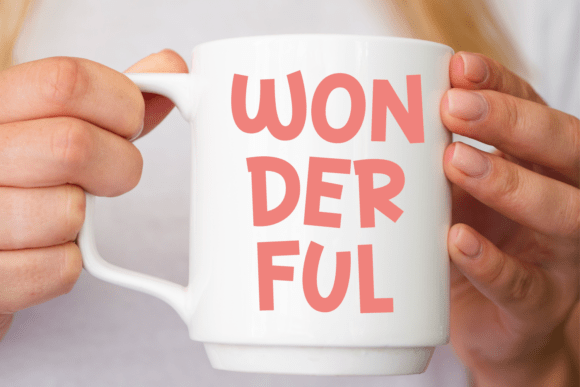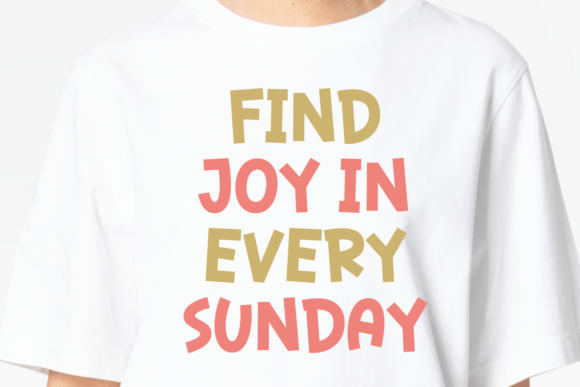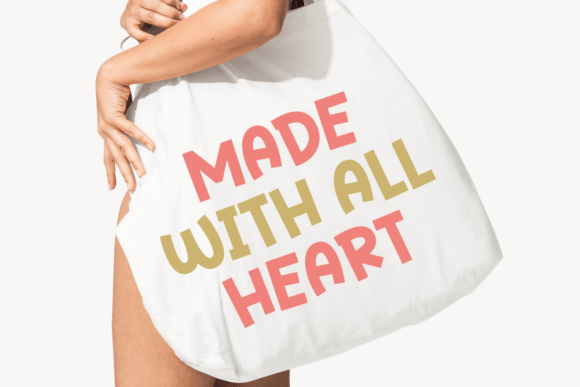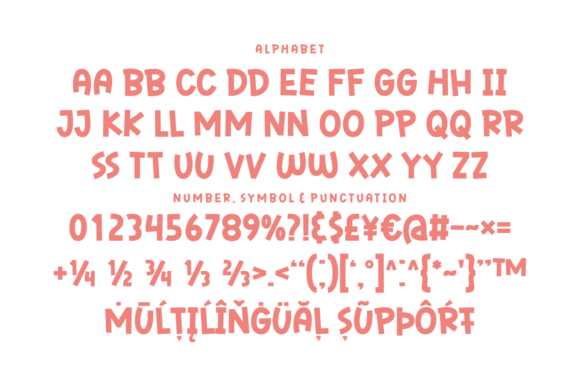
Introduction to Girls Chat Font Font
Fonts play a crucial role in design, and the Girls Chat Font font is a typeface that brings both character and versatility to any project. Whether you’re working on a branding project, a website, or a print design, the Girls Chat Font font offers a unique style that can elevate your work.
Imbued with charm and whimsy, Girls Chat is an enchanting display font that presents designerโs with the distilled essence of joy and fellowship.
Its merry curves and amiable personality enkindle emotions of companionship and delight Exceptionally suited for childrenโs literature, festive invitations, and design projects that aim to spread warmth, conviviality and a dash of girlie sophistication.
Key Features of Girls Chat Font Font
- โ High-quality typeface designed for professional use
- โ Includes a wide range of glyphs and characters
- โ Ideal for logos, branding, websites, and print
Why Choose Girls Chat Font Font?
The Girls Chat Font font is more than just a typeface โ it’s a design tool that helps you communicate your message with style and clarity. Its unique character set and versatile design make it suitable for a wide range of applications, from elegant invitations to bold headlines.
With its carefully crafted letterforms and balanced proportions, the Girls Chat Font font ensures readability and visual appeal across all mediums.
What makes Girls Chat Font font special?
The Girls Chat Font font stands out with its unique design, exceptional readability, and versatility across various design applications.